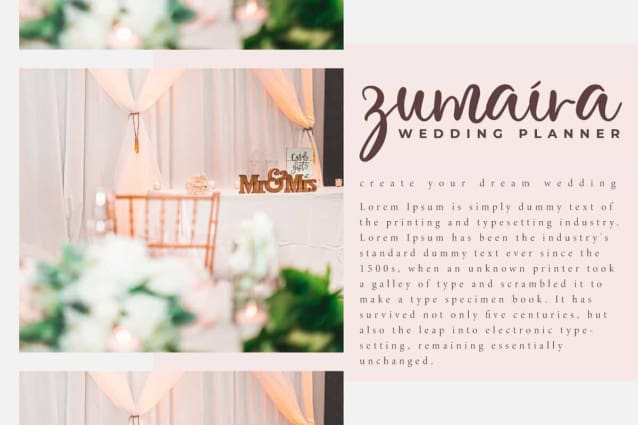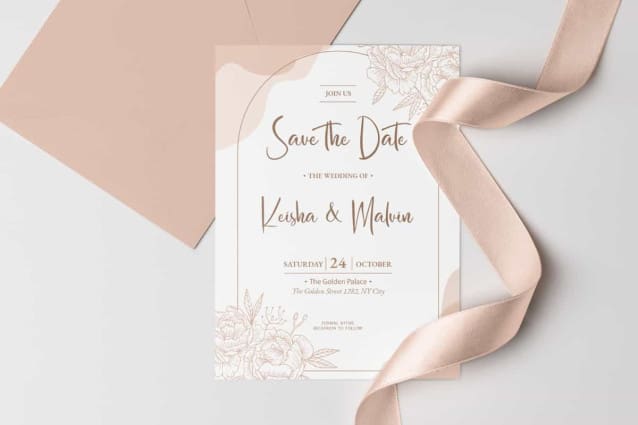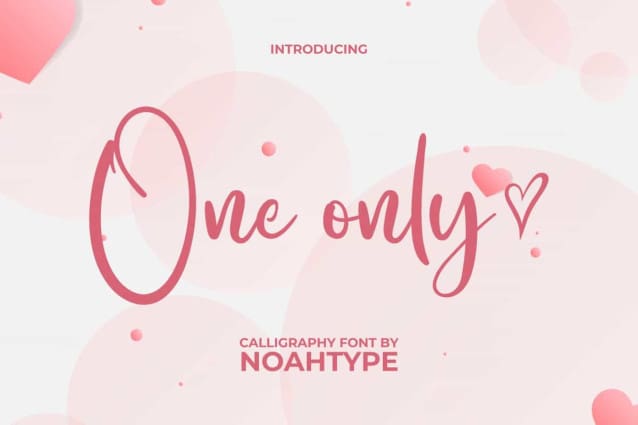
One Only Font
One Only Font is a beautiful stylized calligraphy script font by NoahType. This font is suitable for showing feelings of love through the designs you create. It will be good for any industries, such as advertising, beauty product, cafes, event or wedding organizer, fashion, florist, printing, publishing, and more!
One Only Font includes full set of Uppercase and Lowercase Basic Characters, Numerals, Punctuation and Symbol. Go get and use this lovely font in your various designs, such as brand image, brochure, custom design, gift box, invitation, label, menu, poster, quotes, screen printing, signage, stationery, website, and more!